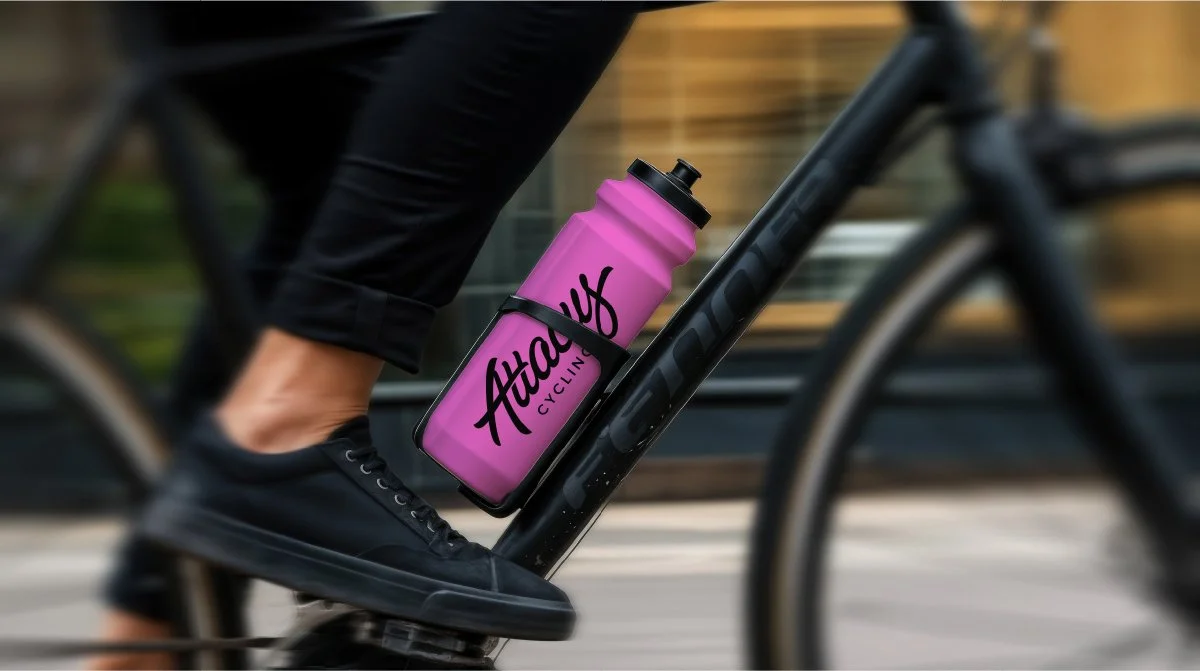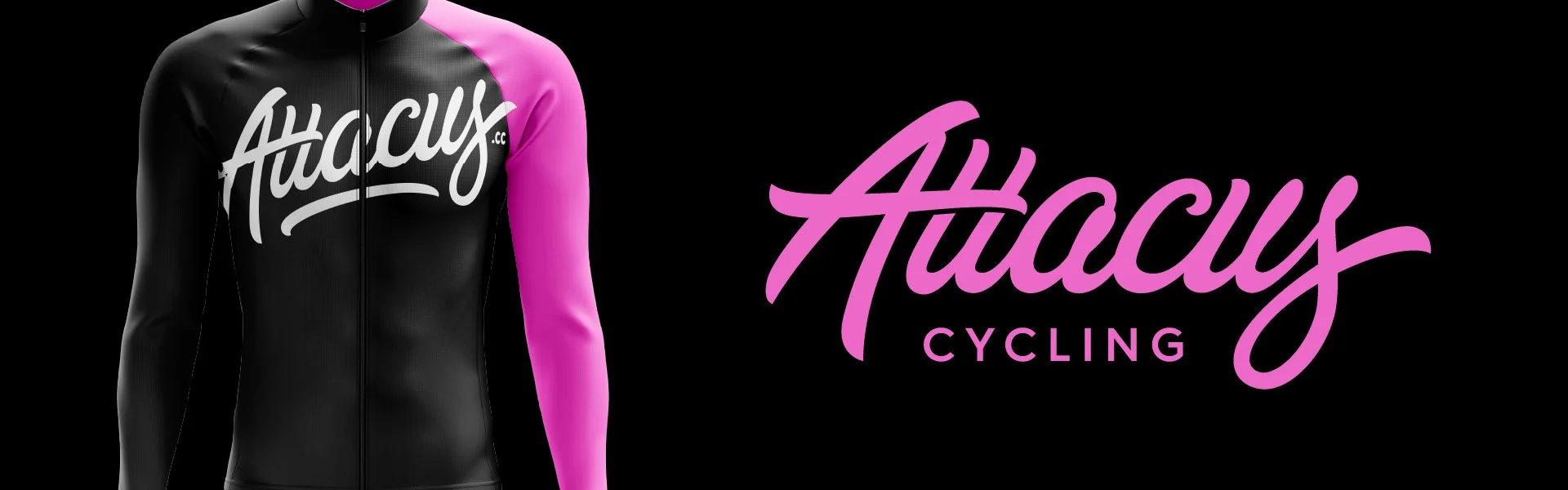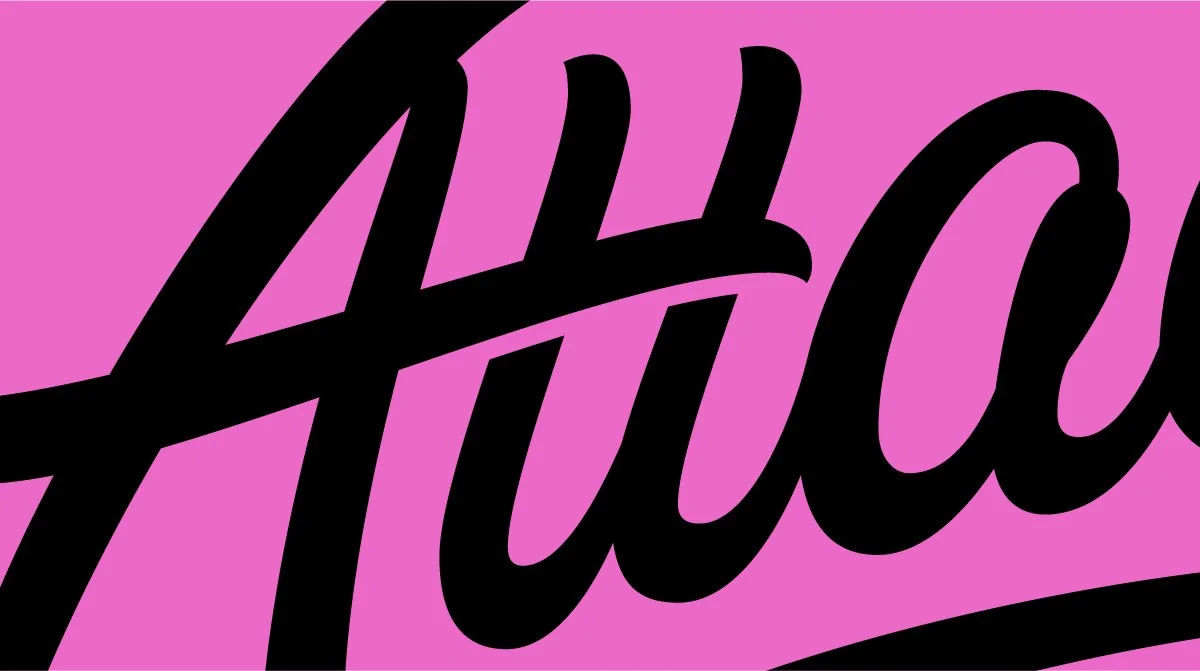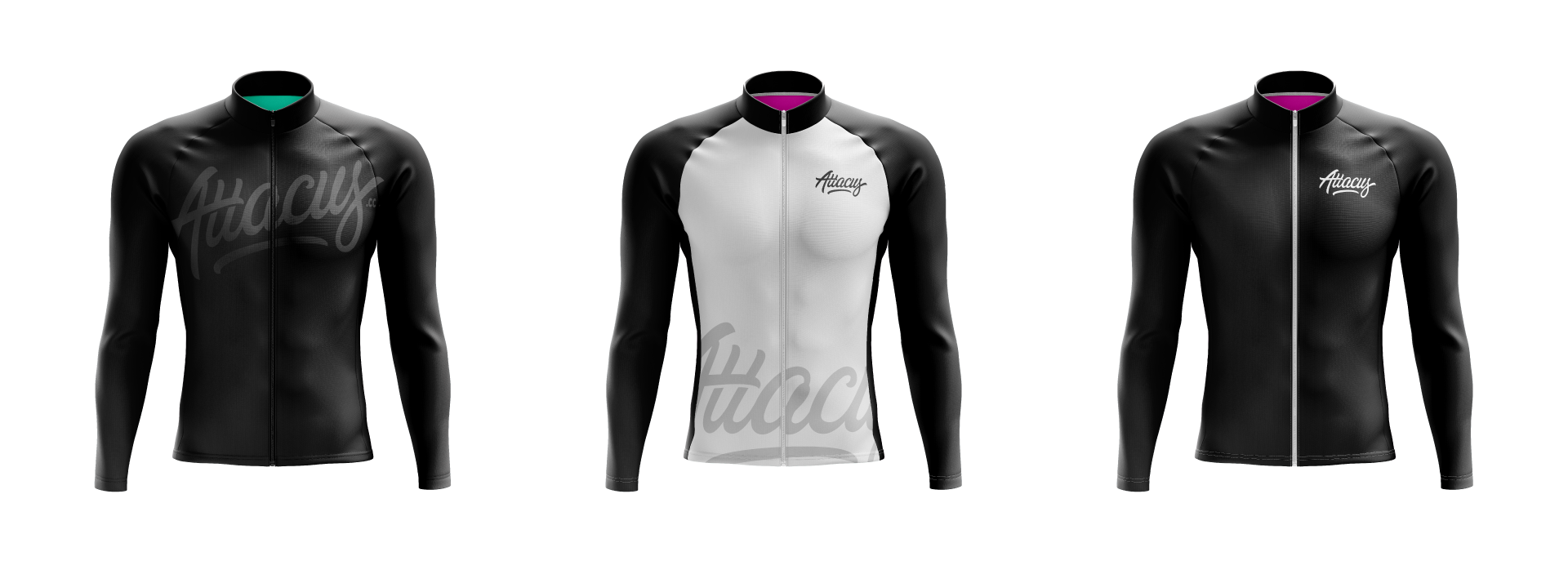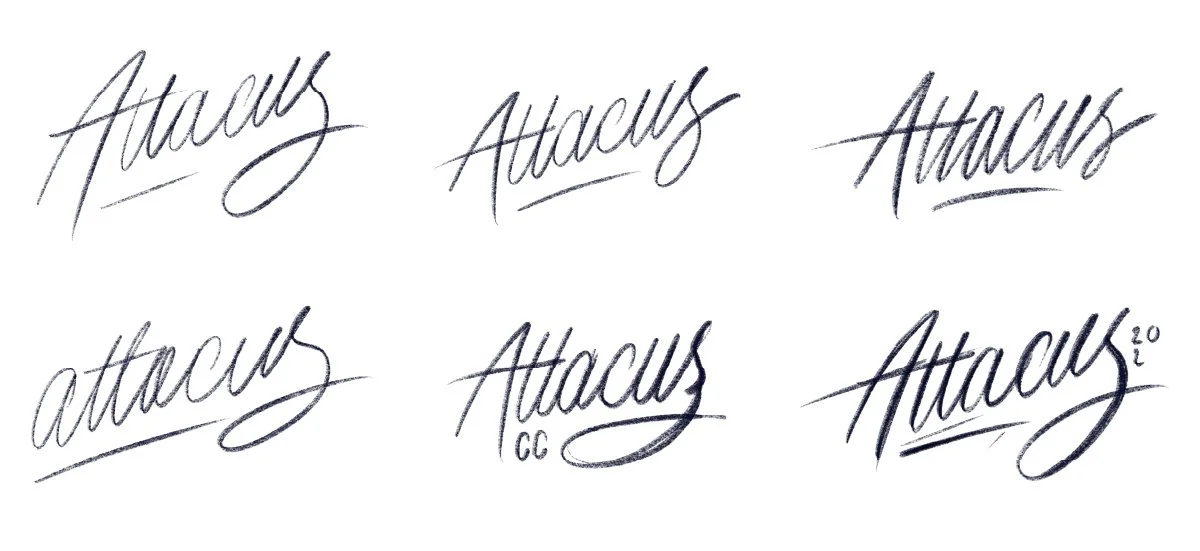
Attacus Cycling
Attacus Cycling is a brand built around bold individuality, self-expression, and the joy of pushing personal limits. They’re known for combining performance with creativity, making cycling gear that feels as good as it functions and stands out in a sea of sameness. Their products speak to riders who value personality as much as endurance, and who see cycling as not just a sport, but a lifestyle and culture.
I designed this custom hand-drawn script lettering to capture that spirit. The bold, sweeping word mark works beautifully across jerseys, bottles, and accessories, expressive enough to be iconic, yet clean enough to stay versatile. It embodies Attacus Cycling’s blend of creativity, motion, and attitude in a way that feels unmistakably theirs.